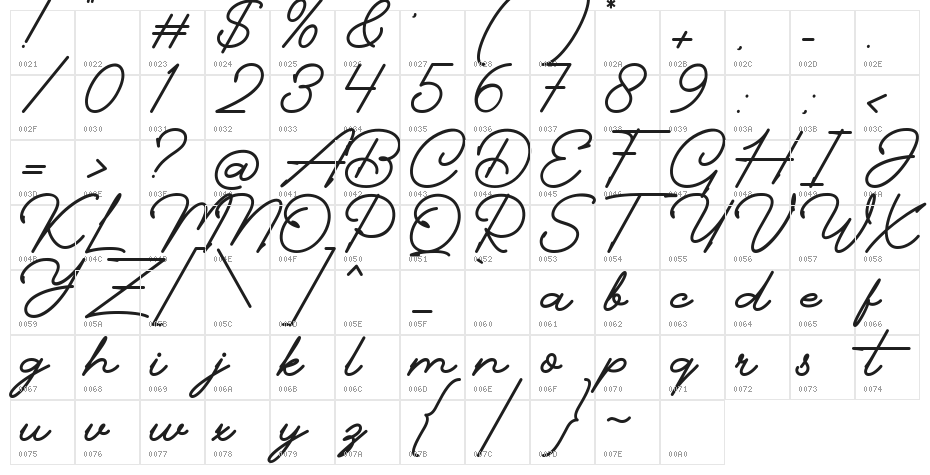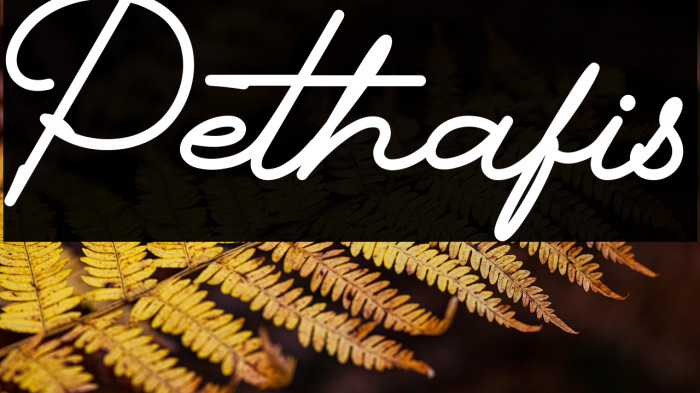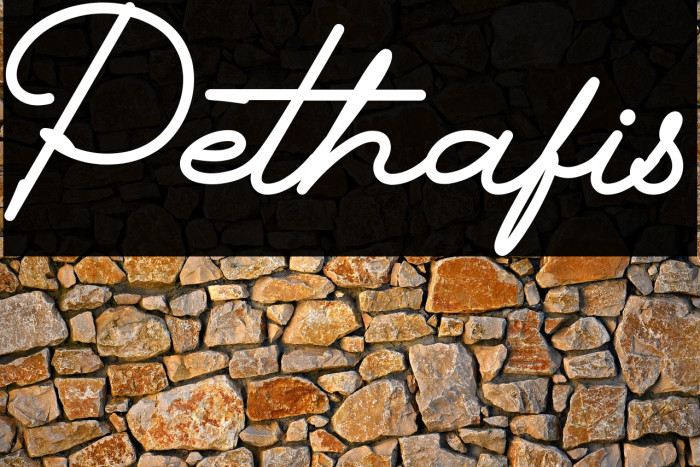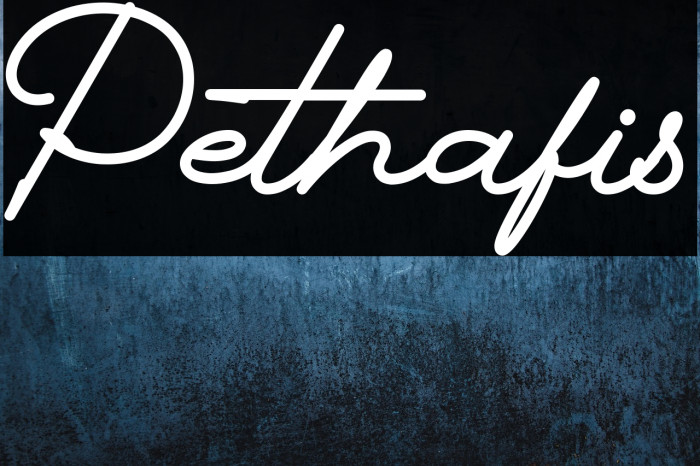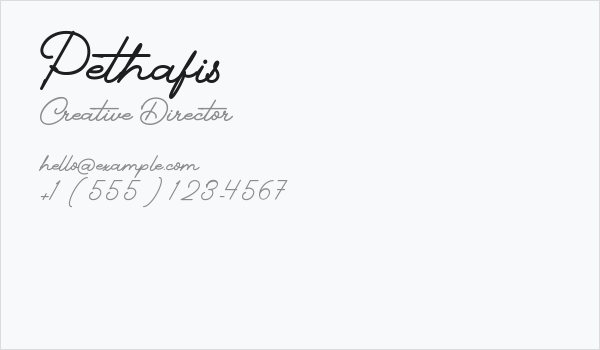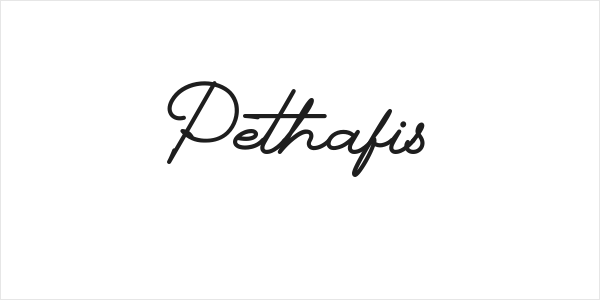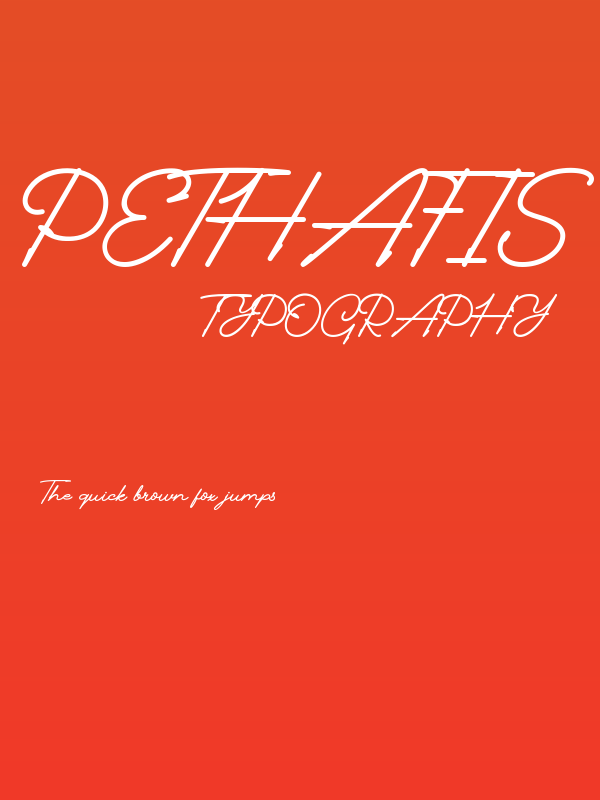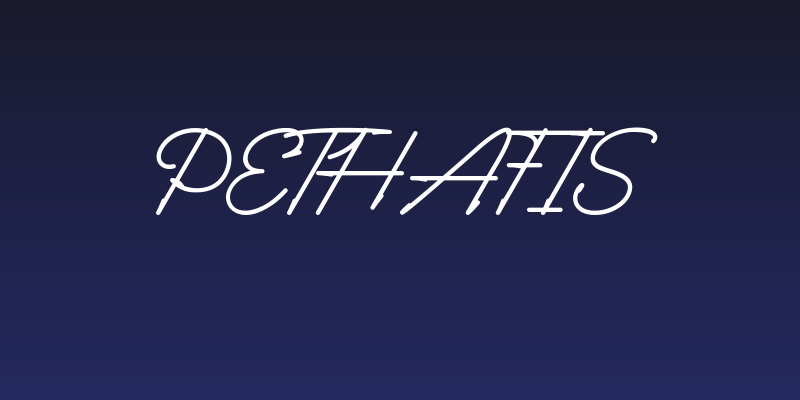
Pethafis Font
Pethafis Description
A cursive script font with elegant, flowing lines and a handwritten appearance. The characters are connected, giving a smooth and continuous look.
| Overall Style | Elegant, Handwritten |
| Use Case | Logos, Invitations, Decorative text |
| Proposed Projects | Invitations, greeting cards, personal branding. |